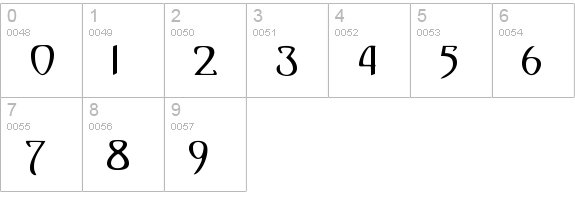
Gismonda font is a stunning typeface that exudes elegance and sophistication. With its graceful curves and stylish flourishes, this font is perfect for adding a touch of luxury to any project. Whether you're designing a wedding invitation, a branding project, or a fashion magazine layout, Gismonda font will elevate your design to the next level. What's even better is that Gismonda font is available for free download at FontsMarket.com. Yes, you read that right - you can access this beautiful font without spending a dime. Don't miss out on the opportunity to enhance your creative projects with Gismonda font's timeless beauty and charm. Download it now and let your designs shine!